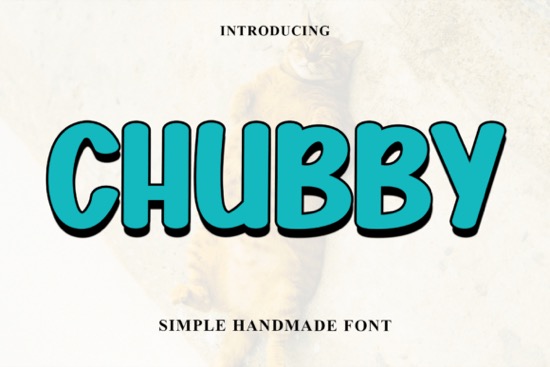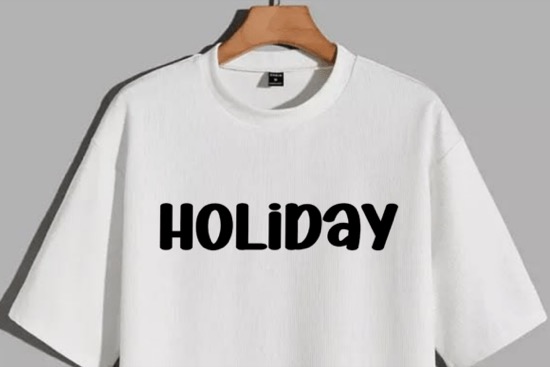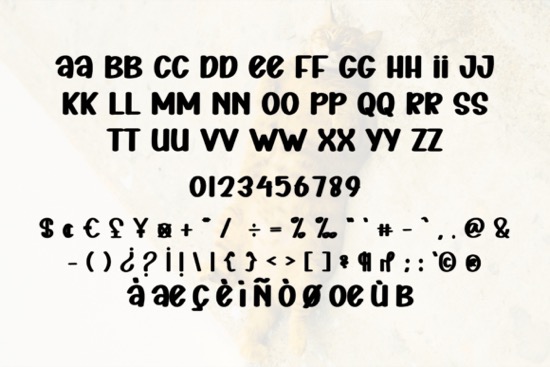
Chubby Font
Chubby is a font that combines functionality and simplicity, featuring a blend of script style and display minimalism that wraps your designs in a warm embrace of adorability. With charming letterforms and an innocent vibe, it infuses a delightful playfulness into your creative projects. Ideal for conveying a lighthearted and endearing aesthetic, Disney adds a sweet and whimsical flair to your expressions.